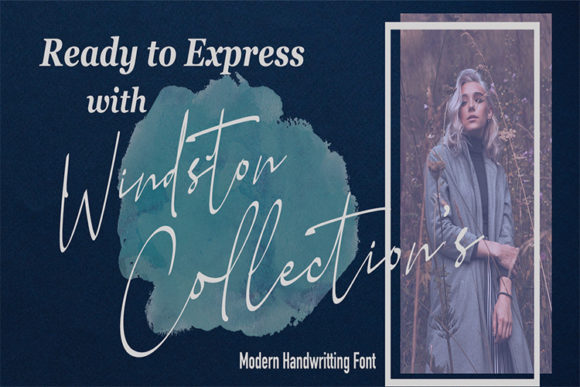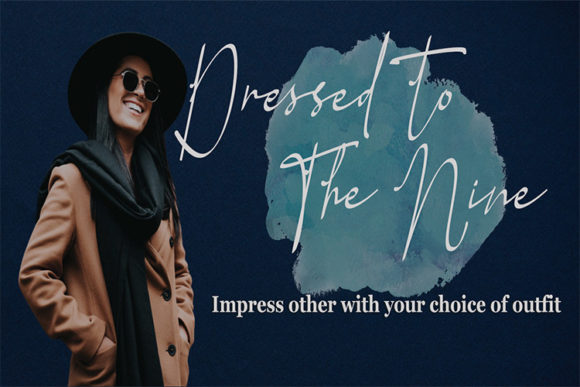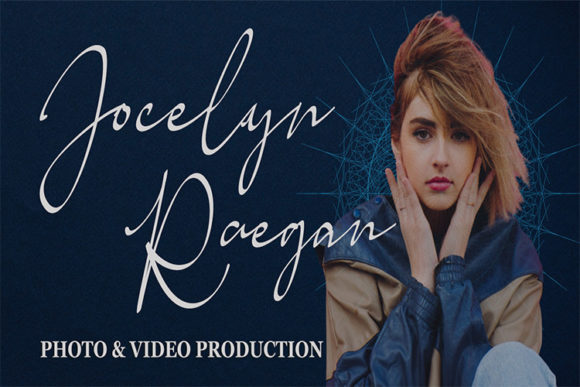
Introduction to Sandtrey Font
You’re in the midst of brainstorming your latest creative project, pouring over design inspiration and searching for the perfect font to bring your vision to life. Amidst the countless options, one name keeps popping up – Sandtrey Font. This stunning script font has captured the hearts of designers worldwide with its refined, elegant, and modern aesthetic.
What sets Sandtrey Font apart is its versatility, making it an invaluable resource for designers of all levels. Whether you’re crafting logos, branding materials, invitations, or social media posts, this high-quality font is sure to elevate your design. With its transparent background, you can seamlessly integrate it into your creative projects, ensuring a polished and professional look.
Key Features of Sandtrey Font
- Includes a wide range of characters and glyphs for versatility
- Features a unique, modern design perfect for modern branding and design
Honest Review: Sandtrey Font
I recently came across the Sandtrey Font and was immediately drawn to its clean, modern design. As a designer, I’m always on the lookout for high-quality fonts to enhance my creative projects. The Sandtrey Font definitely delivers.
- What works well: ✨ The Sandtrey Font has a very versatile design that can be used for a wide range of applications, from web design to print materials. The transparent background makes it easy to use on different backgrounds and the font is highly customizable.
However, I did notice a few limitations with the Sandtrey Font. ⚠️ The font may not be suitable for all design projects, particularly those that require a more formal or traditional look. Additionally, the font may not be as readable on smaller screen sizes.
Overall, I’m impressed with the Sandtrey Font and would definitely recommend it to designers who are looking for a modern and high-quality font for their creative projects. The transparent background and free download make it a valuable design resource that’s hard to pass up.
Tips for Getting the Most Out of Sandtrey Font
Here are some tips to help you get the most out of Sandtrey Font: Use it in combination with other high-quality design resources to create a cohesive look. Experiment with different font sizes and colors to add visual interest. Use the transparent background feature to create a sense of depth and dimension in your designs.
Sandtrey Font is a versatile design resource that can be used in a variety of creative projects, including: Social media graphics, marketing materials, product packaging, and more. Its high-quality design and transparent background make it an ideal choice for designers looking to add a touch of sophistication to their work.